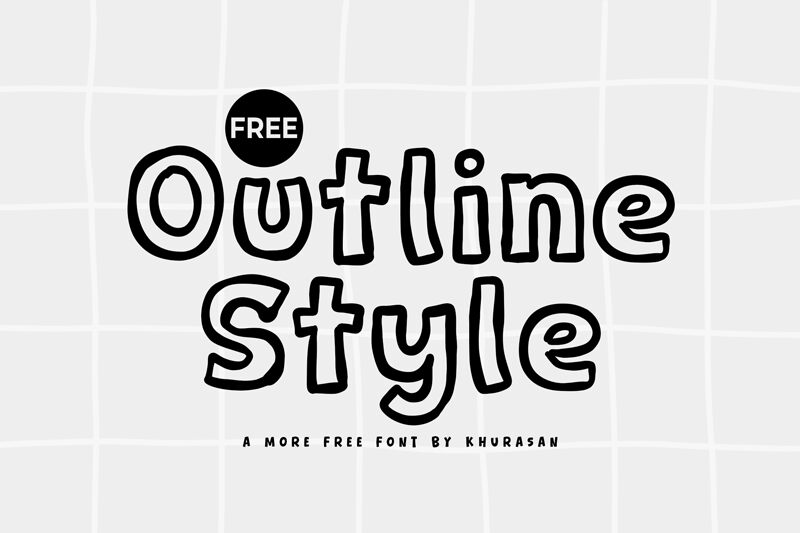
Outline Style font family by Khurasan™ is a fun and playful cartoon-style free font family with a dynamic and informal appearance. The family consists of 2 font styles that are quite cheerful, approachable, and modern. It has a childlike, casual and eye-catching design that makes it especially attractive for a variety of aesthetic uses. Most importantly, it is versatile and highly readable with both its thin and thick outline styles.